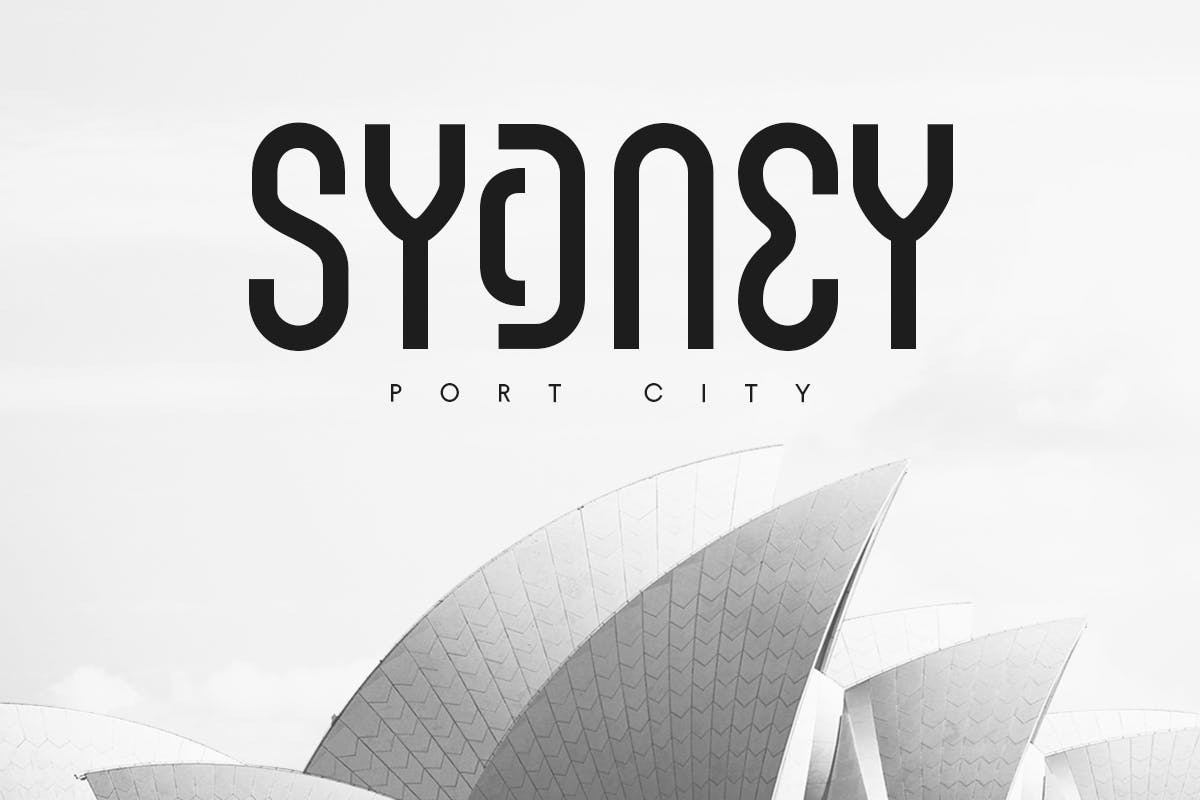
Sydney Unique Modern Font Free Download
Sydney Unique Modern Font Free Download is a stylish and eye-catching typeface designed to bring a sleek, contemporary touch to your creative projects. Whether you're crafting a logo, designing a website, or working on branding materials, this font’s unique structure and modern appeal make it a perfect fit for bold statements. Its clean lines and artistic flair stand out in both digital and print formats. Ideal for designers looking to make an impact, the Sydney Unique Modern Font adds elegance and professionalism to any layout. You can try the Sydney Unique Modern Font Free Download version for personal projects or to preview it before committing to a license. Make your design stand out with a font that blends creativity with modern minimalism!